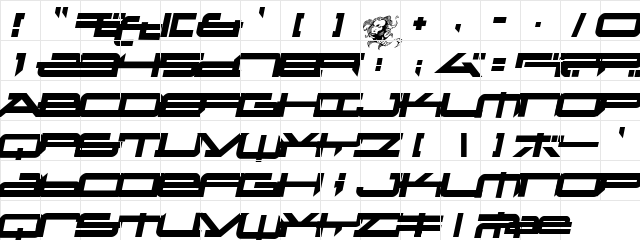
Metatron2 Normal Font Preview
Metatron2 Normal
Metatron2 Normal Font Details
Design Context for Metatron2 Typeface
Metatron2 is a composed and adaptable typeface that performs quietly and consistently across a wide range of design contexts.